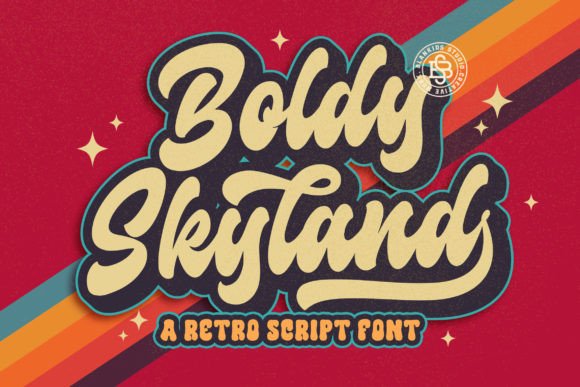
The Boldy Skyline Font: A Playful Blast from the Past
I’ll never forget the design project that led me to discover the Boldy Skyline font. I was working on a vintage-themed wedding invitation, and I was struggling to find the perfect font to capture the nostalgic feel my client was looking for. That’s when I stumbled upon Boldy Skyline, and it instantly transported me back to a bygone era. In this article, I’ll share my experience with this amazing font, its features, and how to make the most of it in your designs.
• ✨ The vintage aesthetic is on point! Boldy Skyline delivers a unique blend of playfulness and nostalgia that will elevate your designs.
• ✅ It’s incredibly versatile and can be used for a wide range of projects, from branding and headings to wedding designs, invitations, signatures, logos, labels, and more!
• 💥 The font’s bold and eye-catching personality makes it perfect for making a statement.
While Boldy Skyline is an amazing font, there are a few things to keep in mind:
• 🤔 Some users might find the font a bit too bold for certain projects. However, this can also be seen as a strength, as it really makes your designs stand out.
4. Explore the font’s OpenType features, such as glyphs and stylistic alternates, to add more depth and interest to your text.
Exploring OpenType Features
One of the standout features of Boldy Skyline is its OpenType capabilities. By accessing the font’s glyphs and stylistic alternates, you can add an extra layer of creativity to your designs. For example, you can use:
• Ligatures to create unique and eye-catching text combinations.
• Stylistic alternates to add a touch of personality to your font.
• Glyphs to incorporate custom icons and graphics into your text.
Imagine a designer who grew up surrounded by vintage signs, posters, and advertisements. Someone who fell in love with the unique typography and graphics of a bygone era. That’s the inspiration behind Boldy Skyline. The font’s creator wanted to capture the essence of a nostalgic, retro aesthetic and make it accessible to designers and crafters today.
Font Name Boldy Skyline Font
Author Blankids Studio
Q: What type of projects is Boldy Skyline best suited for?
A: Boldy Skyline is incredibly versatile and can be used for a wide range of projects, from branding and headings to wedding designs, invitations, signatures, logos, labels, and more!
Q: Is Boldy Skyline available in different weights or styles?
A: While Boldy Skyline is primarily a bold font, it does come with some variations, such as stylistic alternates and glyphs. These can help you add more depth and interest to your designs.